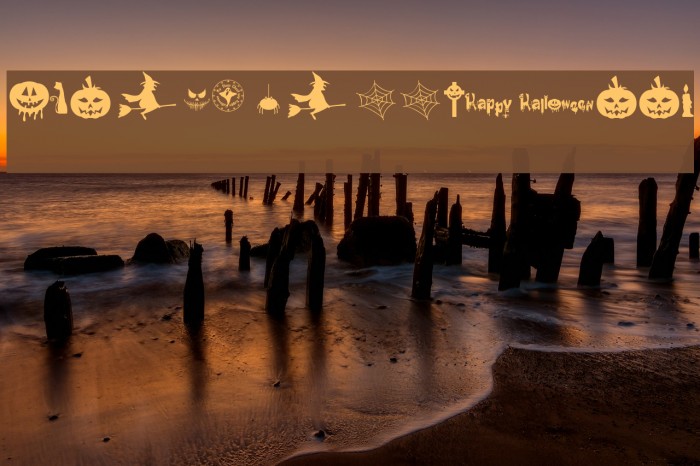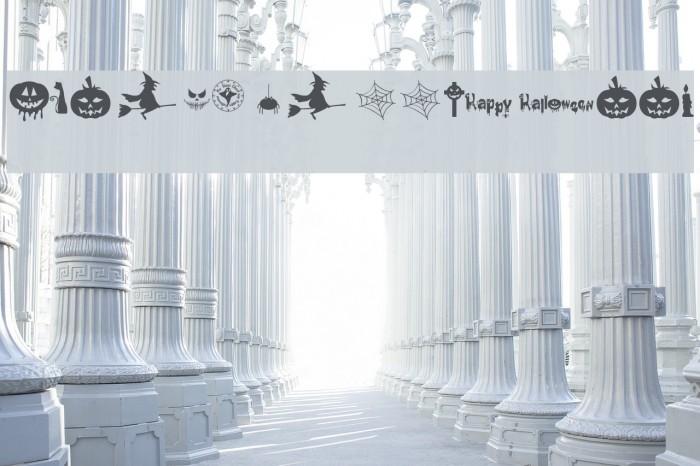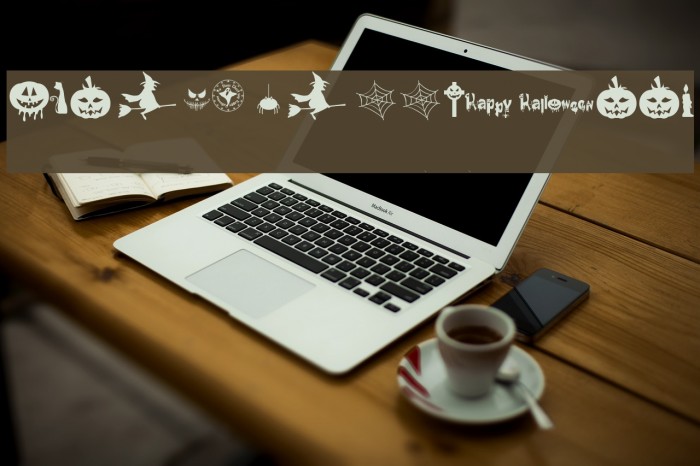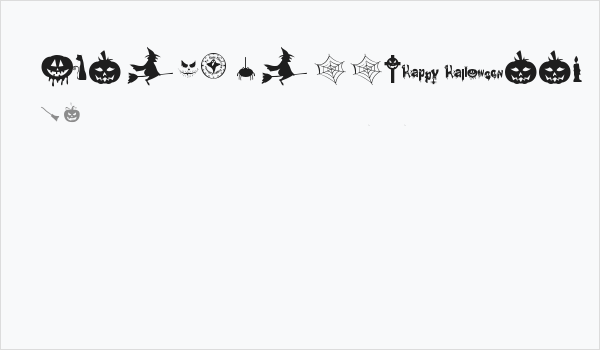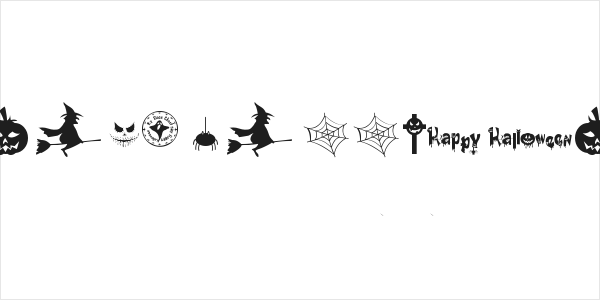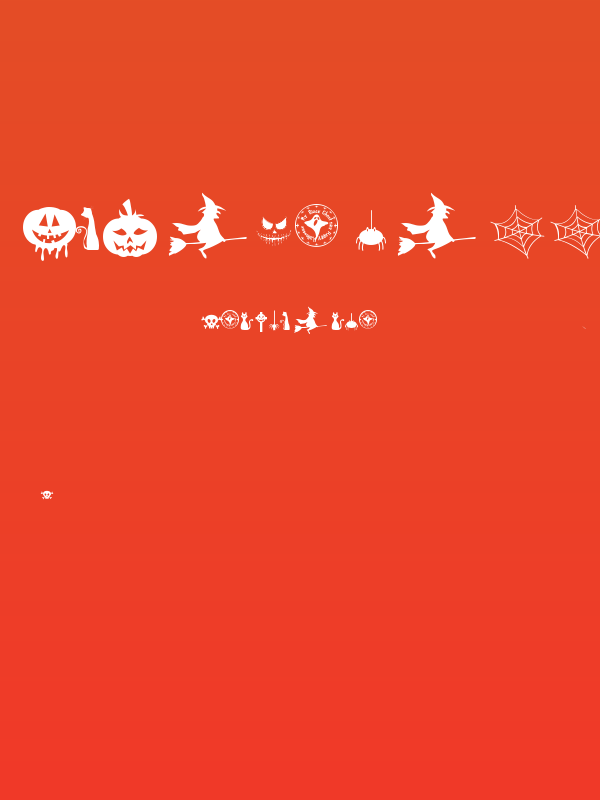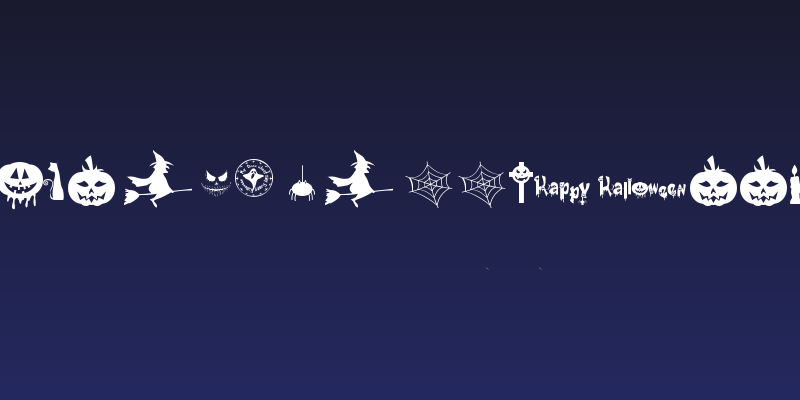
FREAKY HALLOWEEN Font
FREAKY HALLOWEEN Description
This font is a decorative and playful typeface designed specifically for Halloween-themed projects. It features a variety of spooky and whimsical elements, such as witches, pumpkins, bats, and ghosts, integrated into the letterforms. The characters are bold and eye-catching, with a high level of detail that captures the essence of Halloween. The font is perfect for creating festive and eerie designs that require a touch of fun and fright.